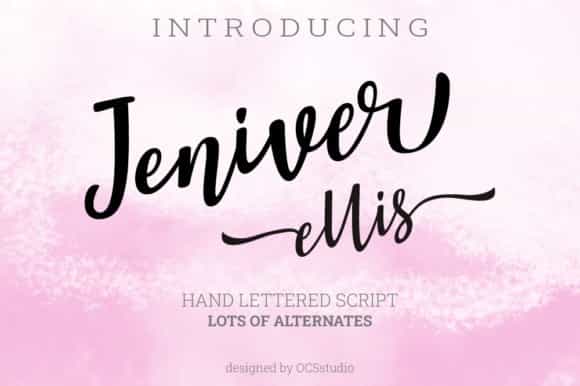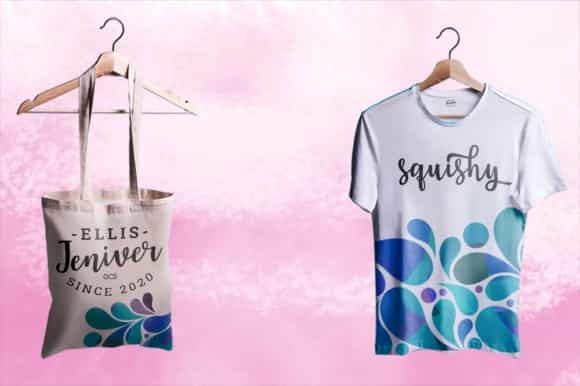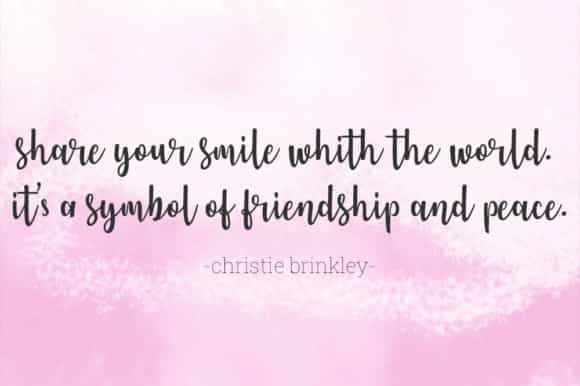
Discover Jennifer Ellis Calligraphy Font, part of the Calligraphy collection—a versatile and unique font perfect for adding a personal touch to your projects. Download it for free and enjoy crafting designs with style, from invitations to social media posts. This font is available exclusively for personal use, giving you the freedom to create without limits. Unlock your creativity with Jennifer Ellis Calligraphy Font today!
Jennifer Ellis Calligraphy Script Font is her name. Jennifer Ellis is the ideal person for logotype and branding. Besides, you can also use this font to design wonderful vintage typography on any of your projects like merchandise, logos, posters, calendars, quotes and t-shirts. Jennifer Ellis fonts can also be used in text content because they are very legible.